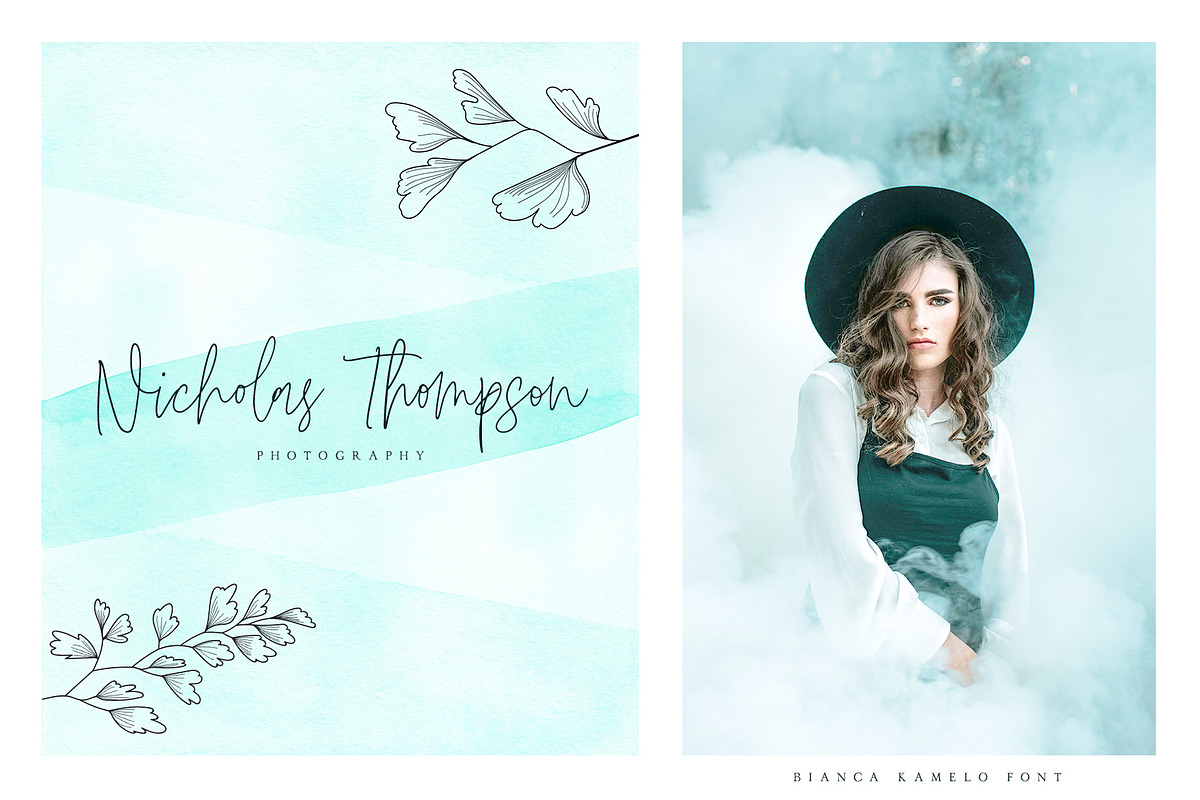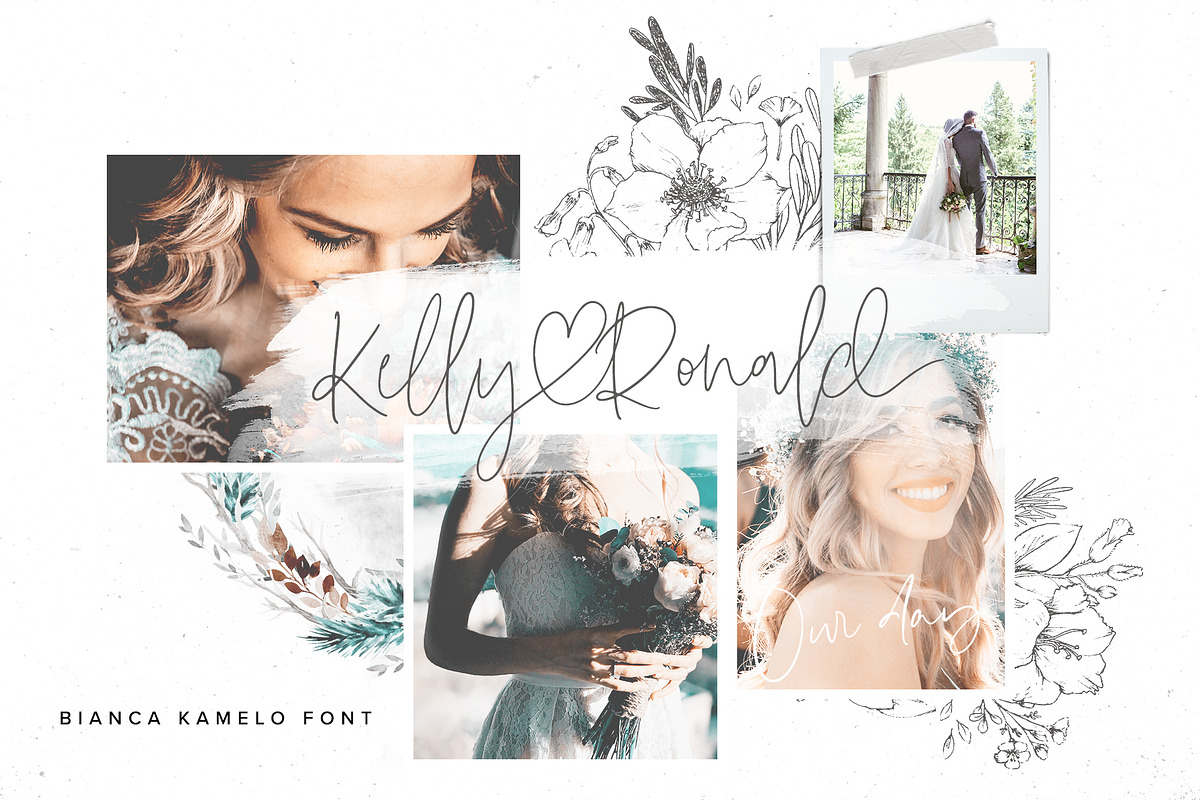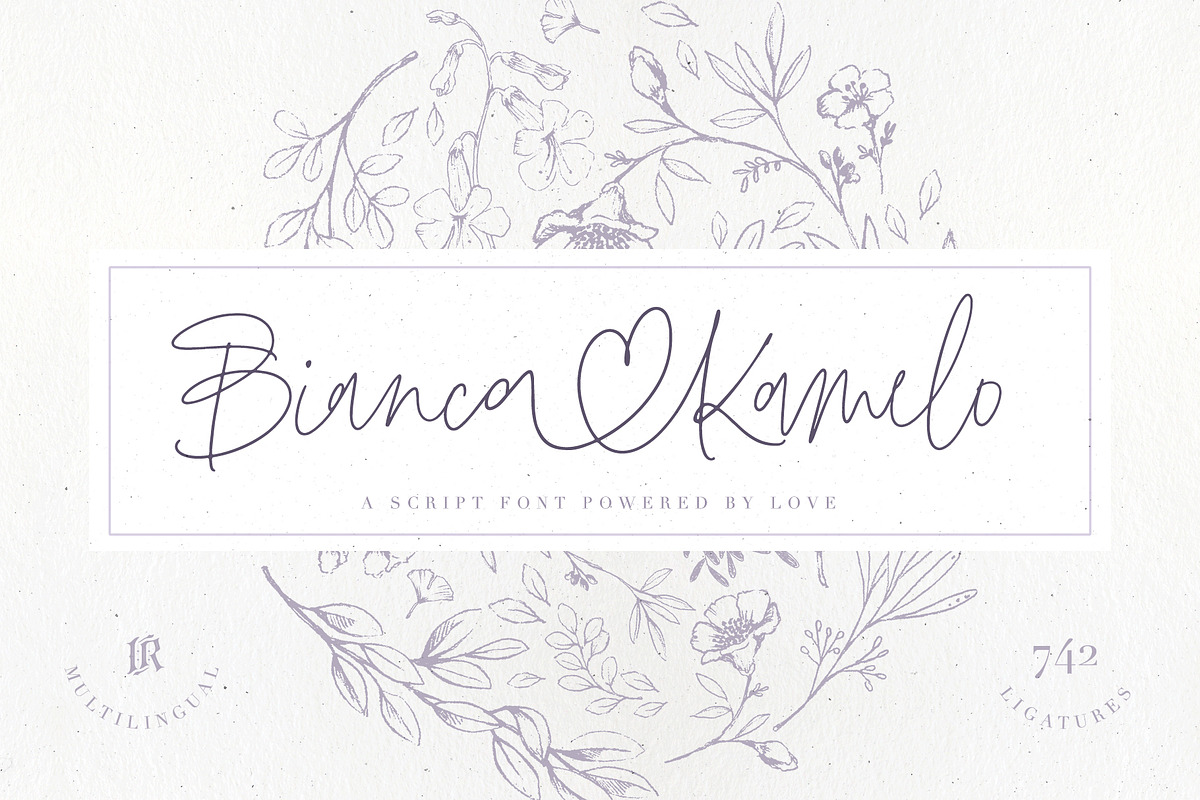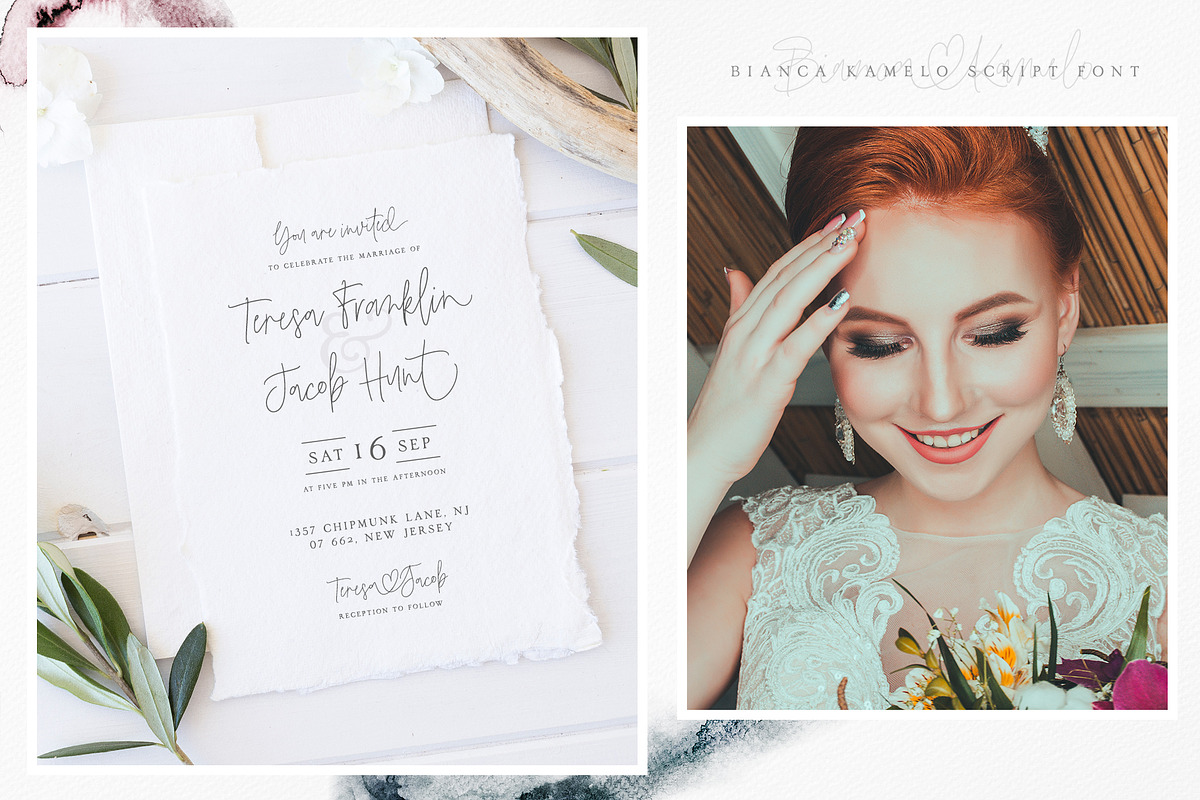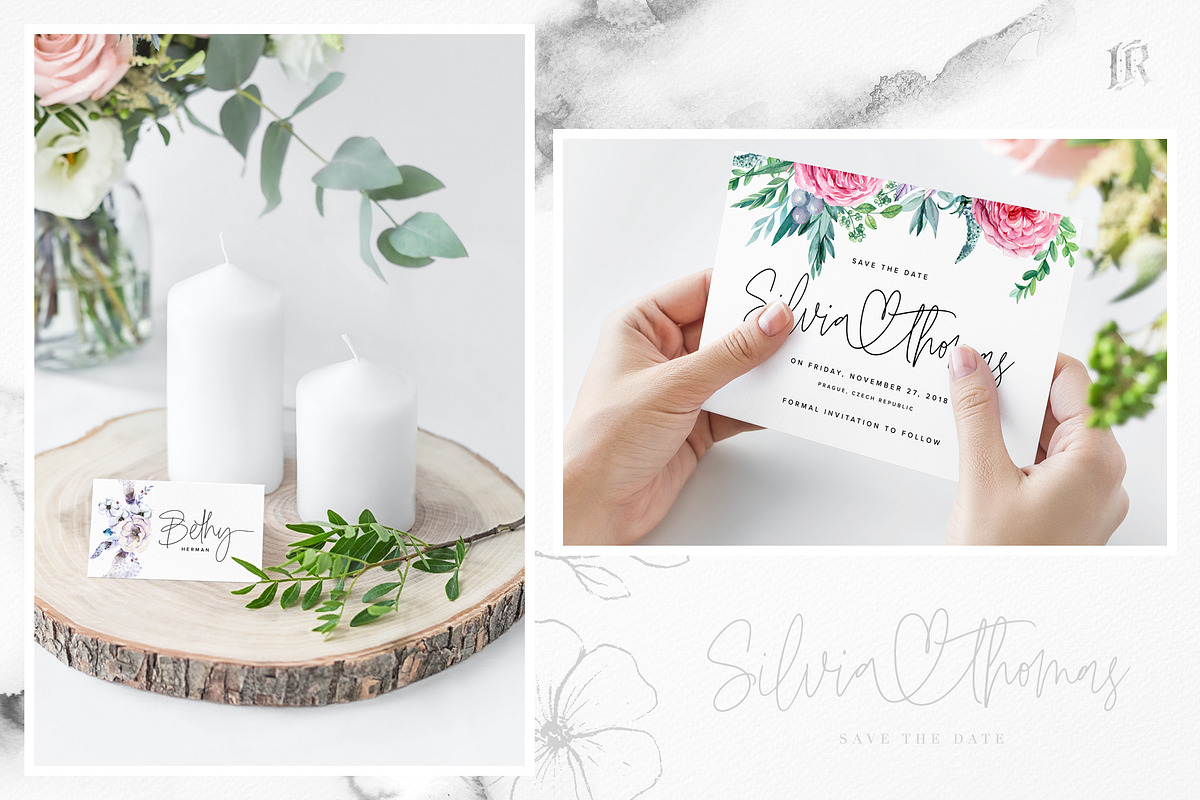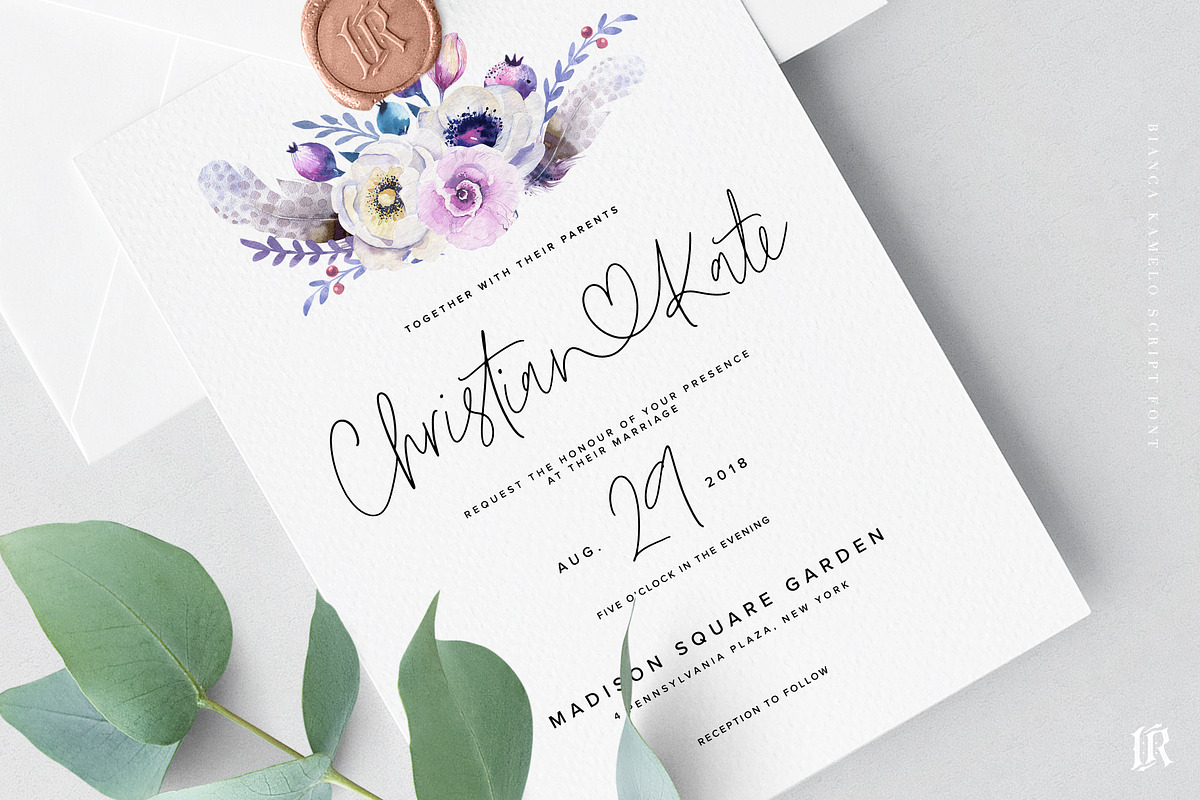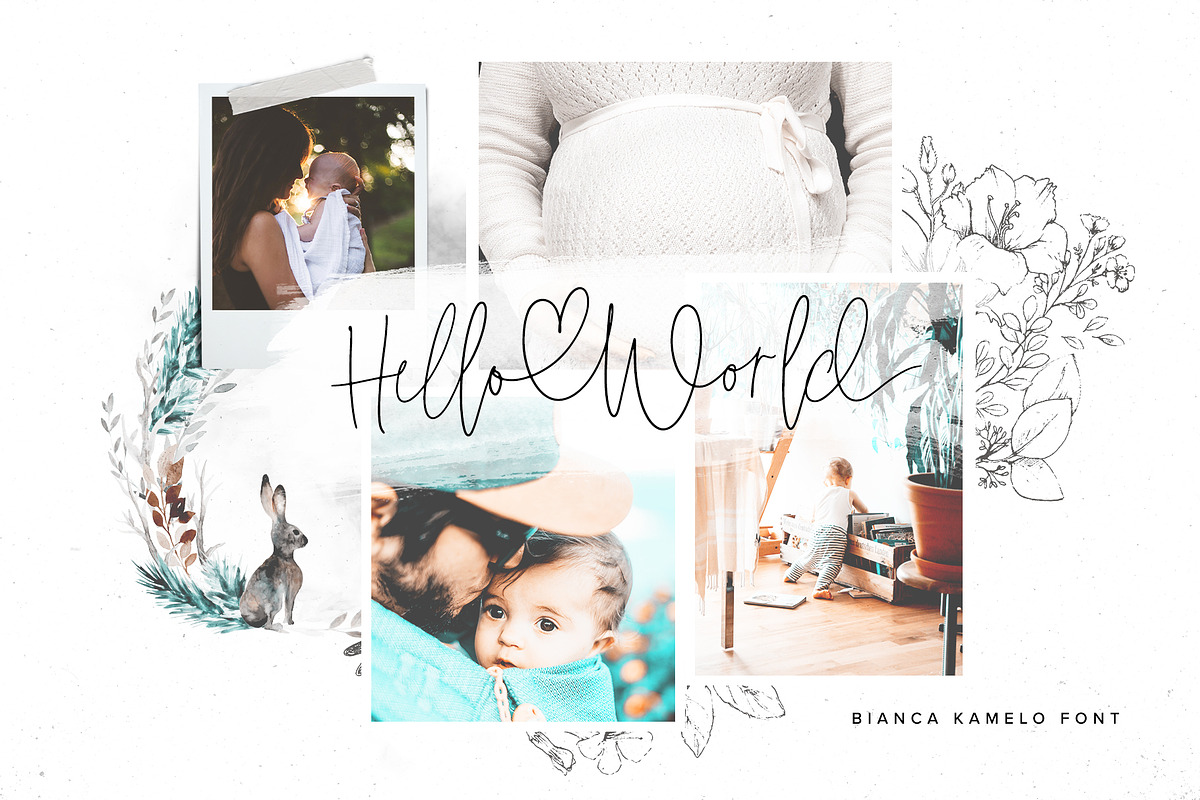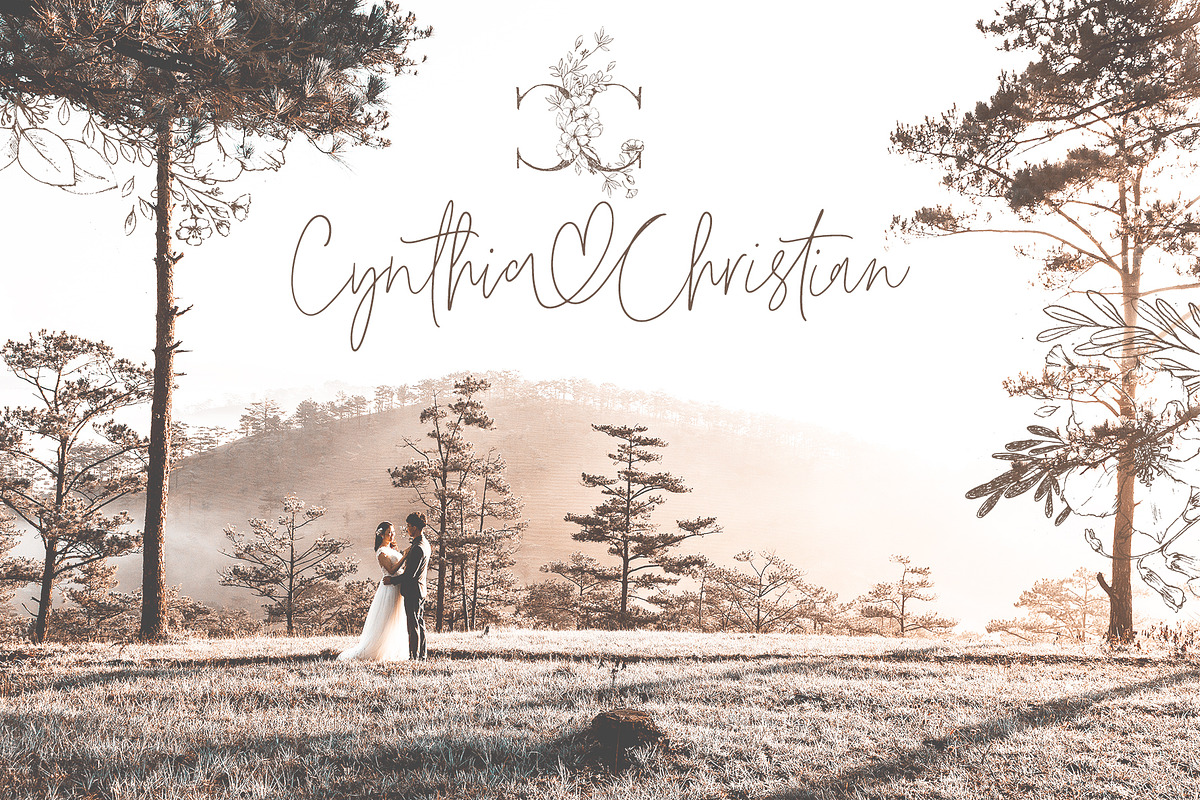
Bianca Kamelo Font
Bianca Kamelo Font is a modern handlettered font with 67 STANDARD LIGATURES and unique 676 "LOVE LIGATURES" which connect names with style. Font includes multilingual support for Western and Central Europe. Is ideal for weddings invitations, baby showers, blog website, instagram, branding, invitations, business cards, and many more. This font also include complete set of alternates for uppercase and lowercase characters and stylistic ends for lowercase characters.
Bianca Kamelo Font is a set of Upper and Lowercase characters, numerals and lot of punctuation glyphs, 67 STANDARD LIGATURES and 676 "LOVE LIGATURES", complete set of alternates for uppercase and lowercase characters and stylistic ends for lowercase characters.
Bianca Kamelo Alternate The original font, with an alternate set of uppercase and lowercase letters changed for the standard characters.
To "ACTIVATE LOVE CONNECTION" you just need to enable "standard ligatures" and type name without separator (space). For example BiancaKamelo. If the name ending with standard ligature, you need to disable that ligature, enable ligature for last name character and first surname character. For example: ChristianKate - disable ligature for ChristianKate and enable for ChristianKate.